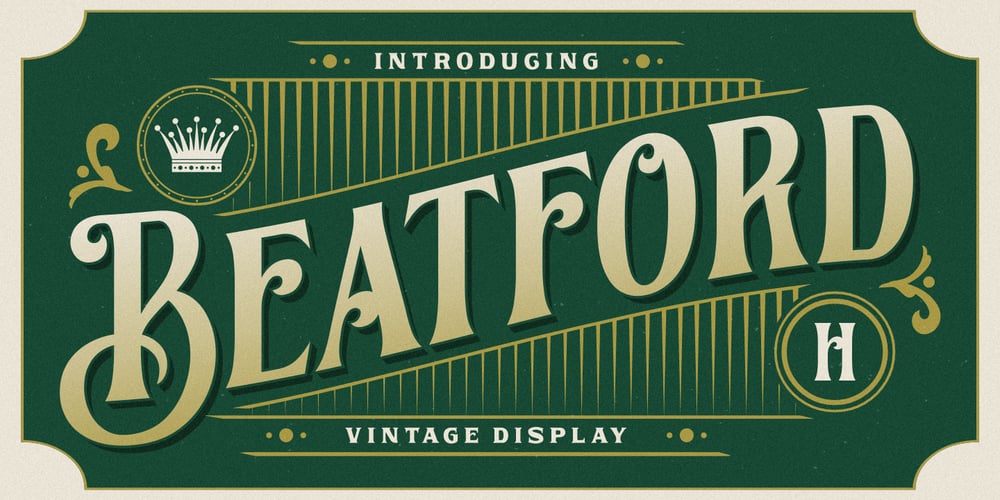
Beatford Font Family was designed by Burhan Afif and published by HansCo. Beatford contains 1 styles and family package options. Beatford is a Vintage typeface font, it will add an old-rustic charm to any design project. It’s great also for Branding, Logo designs, Lettering, Logotype, Craft, Posters and much more. Features : Uppercase & Lowercase ( in All Caps ) Numbers & Punctuation Multilingual Alternate character & ornament How to access alternate / ornament ? : https://hanscostudio.com/tutorial/Enjoy!